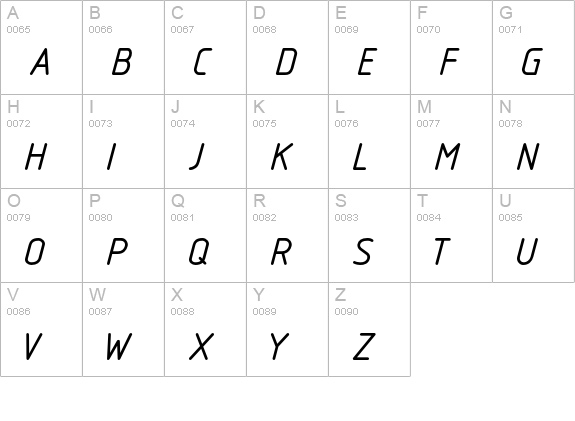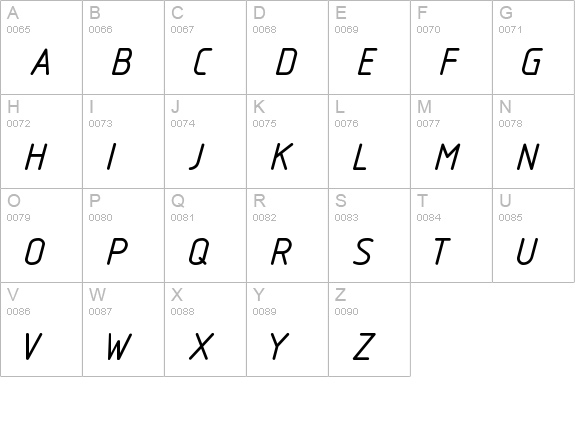
Isonorm3098-Italic is a distinctive, italic variant in the Isonorm3098 typeface family \xE2\x80\x94 well suited to design and typography projects.
Isonorm3098-Italic is a stunning font that exudes elegance and sophistication. Its sleek and slanted design adds a touch of modernity to any project, making it perfect for both professional and creative endeavors. This font is meticulously crafted with attention to every detail, resulting in a truly unique and eye-catching typeface. The delicate curves and precise strokes of Isonorm3098-Italic create a harmonious balance between legibility and artistic flair. One of the best things about Isonorm3098-Italic is that it is available for free download at FontsMarket.com. This means that you can easily access and use this fantastic font in your personal and commercial projects without any constraints. Whether you are designing a logo, creating a website, or working on a branding project, Isonorm3098-Italic is sure to elevate your designs to new heights. Its versatility allows it to be used in various contexts, giving your work a professional and stylish edge. With its clean lines and contemporary aesthetic, Isonorm3098-Italic is a font that will captivate your audience and leave a lasting impression. So why wait? Download this exceptional font for free at FontsMarket.com and let your creativity soar.